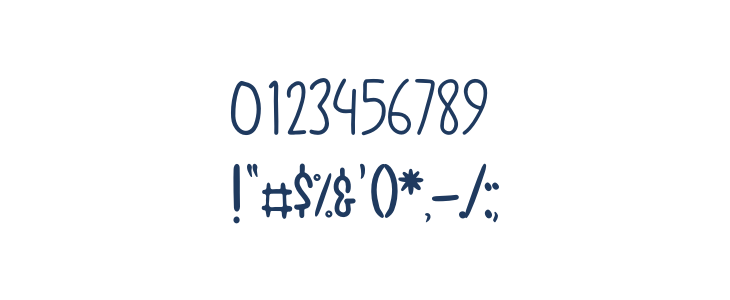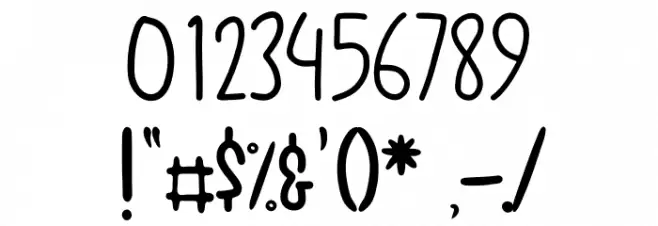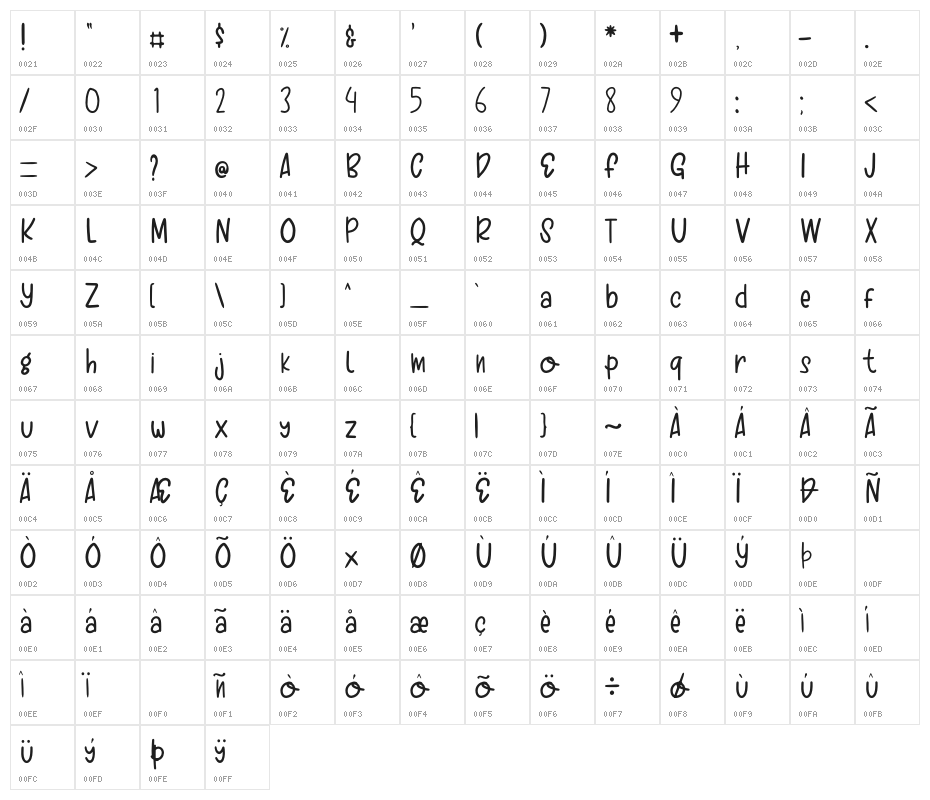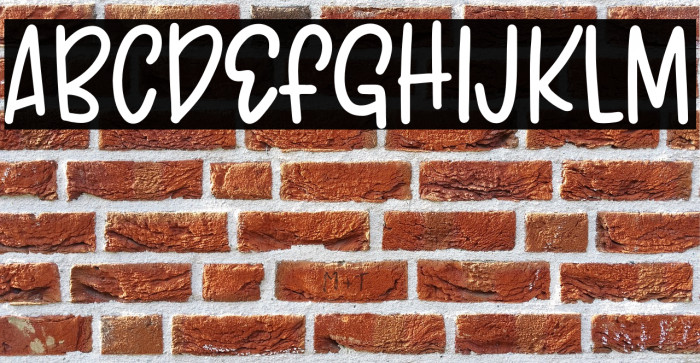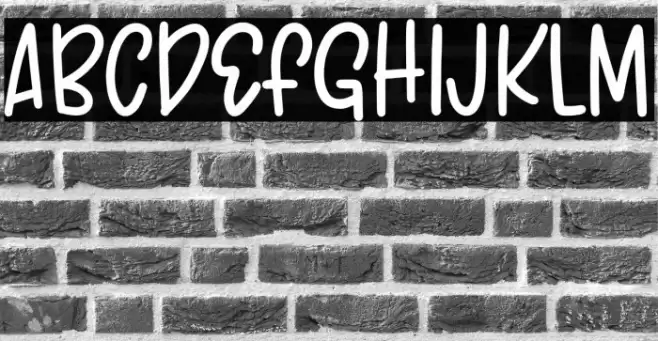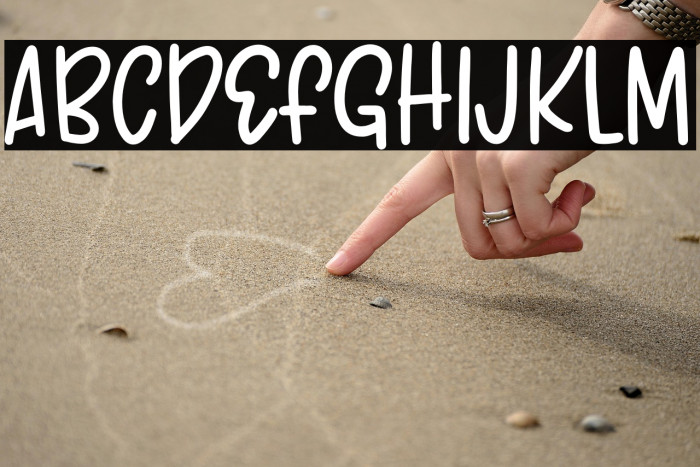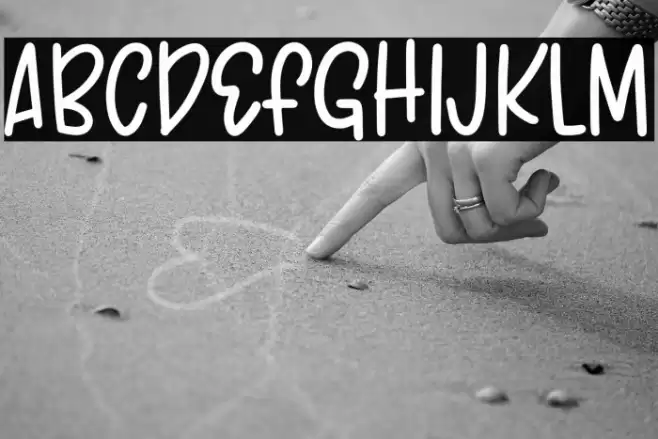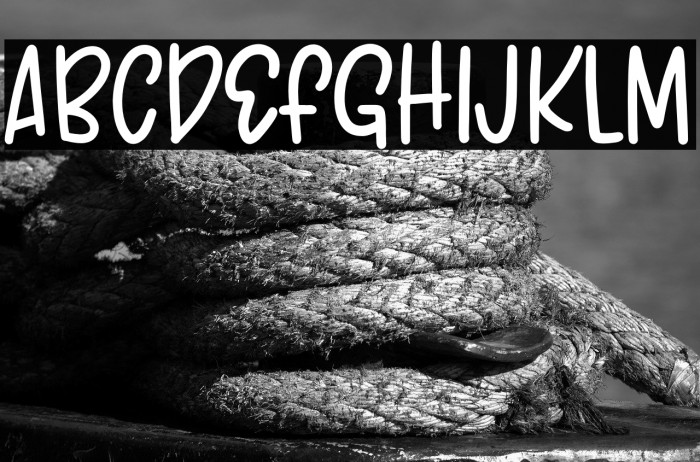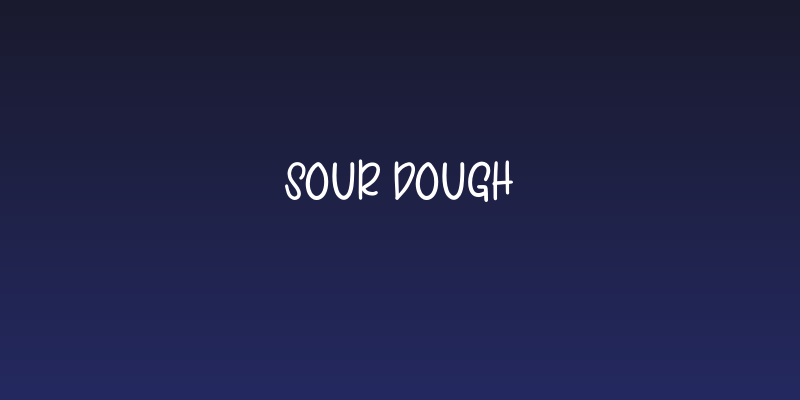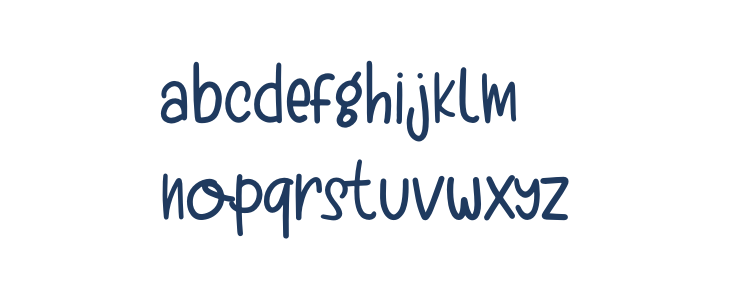
Sour Dough Font
Sour Dough Description
This playful and casual font features a handwritten style that exudes a sense of friendliness and approachability. The letters are slightly irregular, with a natural flow that mimics the look of hand-drawn text. The uppercase and lowercase characters maintain a consistent style, with rounded edges and a slight tilt that adds to its informal charm. Numbers and special characters are designed to match the overall aesthetic, ensuring a cohesive look across all text. This font is perfect for projects that require a personal touch, such as invitations, greeting cards, or social media graphics. Its unique style makes it stand out while remaining legible and versatile.
| Proposed Projects | Ideal for invitations, greeting cards, social media graphics, and personal branding. |